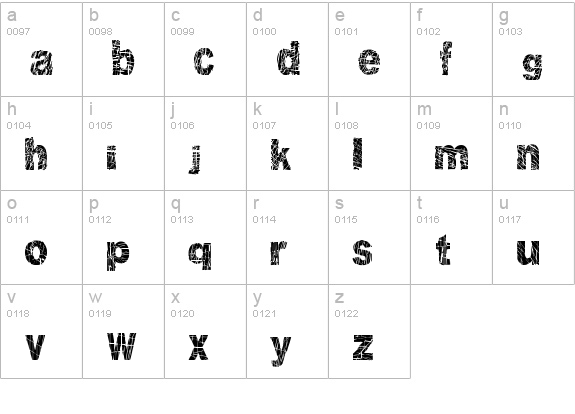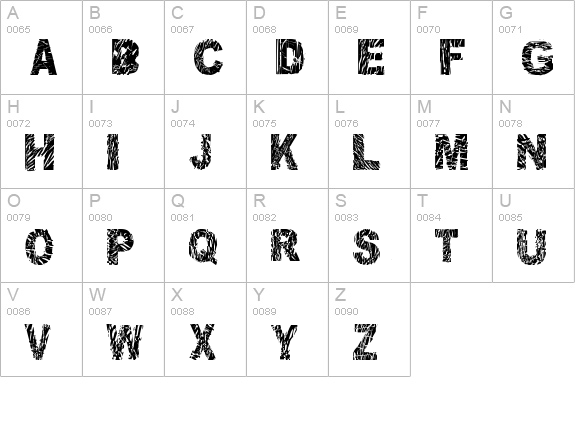
Disorted and Scratchy Font Details
The Disorted and Scratchy font is a unique and edgy typeface that adds a touch of creativity and character to any design project. With its irregular lines and rough edges, this font exudes a sense of rawness and individuality. Perfect for adding a grungy or hand-drawn feel to posters, logos, and other graphic designs, the Disorted and Scratchy font is a versatile choice for those looking to make a bold statement. Best of all, this font is available for free download at FontsMarket.com. Simply head to the website to access this one-of-a-kind typeface and start incorporating its distinctive style into your creative projects today. Don't miss out on the opportunity to add a touch of rebellious flair to your designs with the Disorted and Scratchy font - get it now for free at FontsMarket.com!